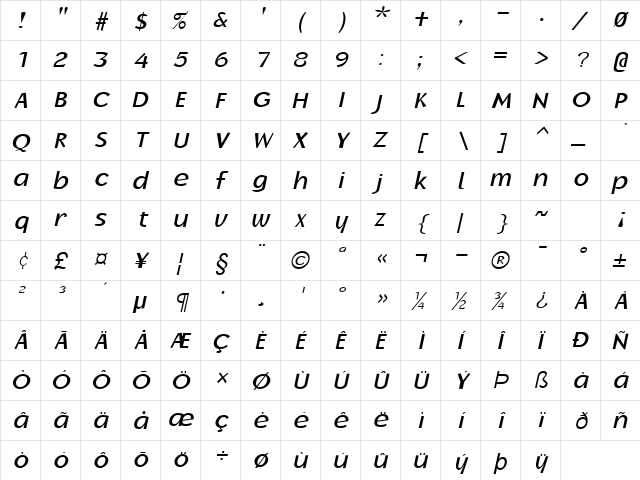
Oak-Ridge Italic
Design Context for Oak-Ridge Typeface
Oak-Ridge offers clean, dependable letterforms without strong stylistic allegiance, making it a practical choice for designers who need flexibility. Its italic angle brings a sense of urgency and motion to the letterforms.
Pro Tip: Use Oak-Ridge for emphasis, pull quotes, and subheadings where its slanted energy can add rhythm to the layout.